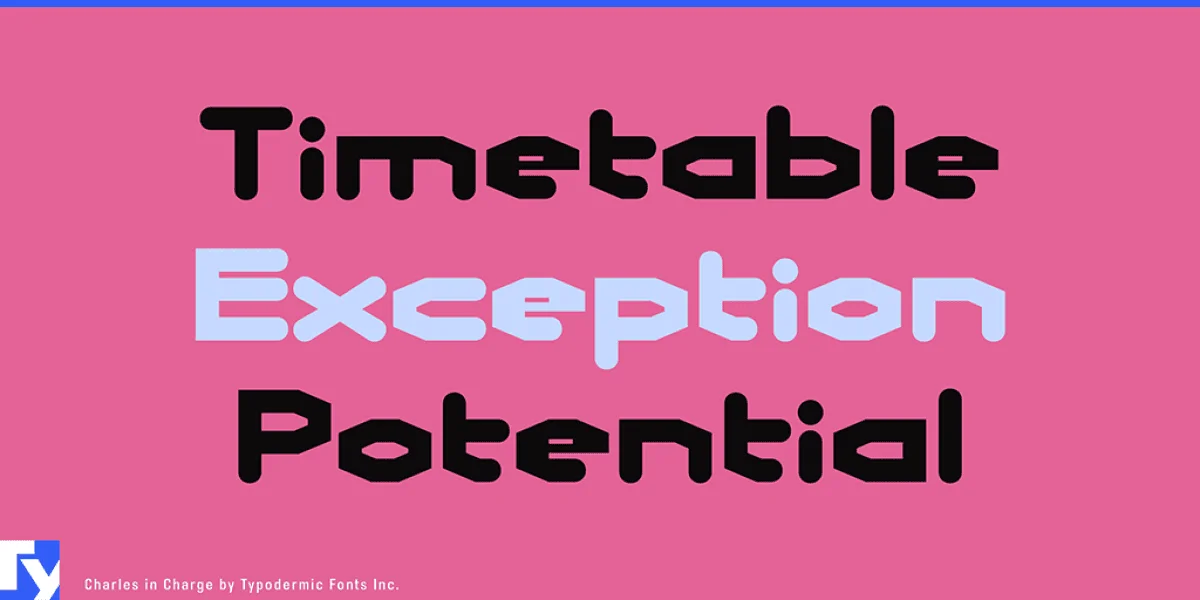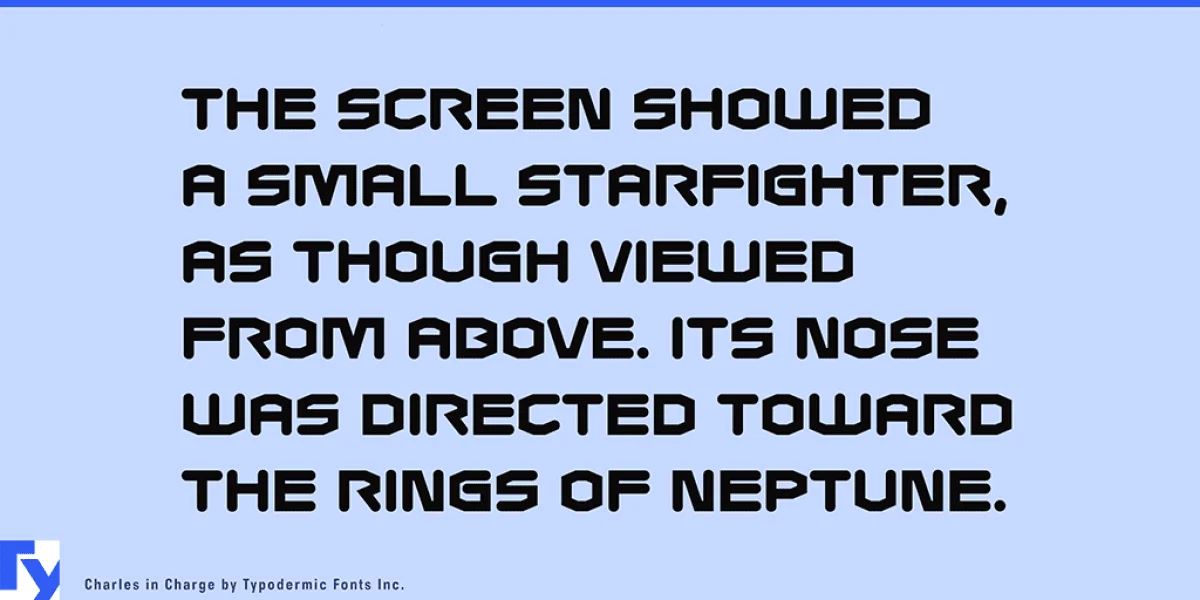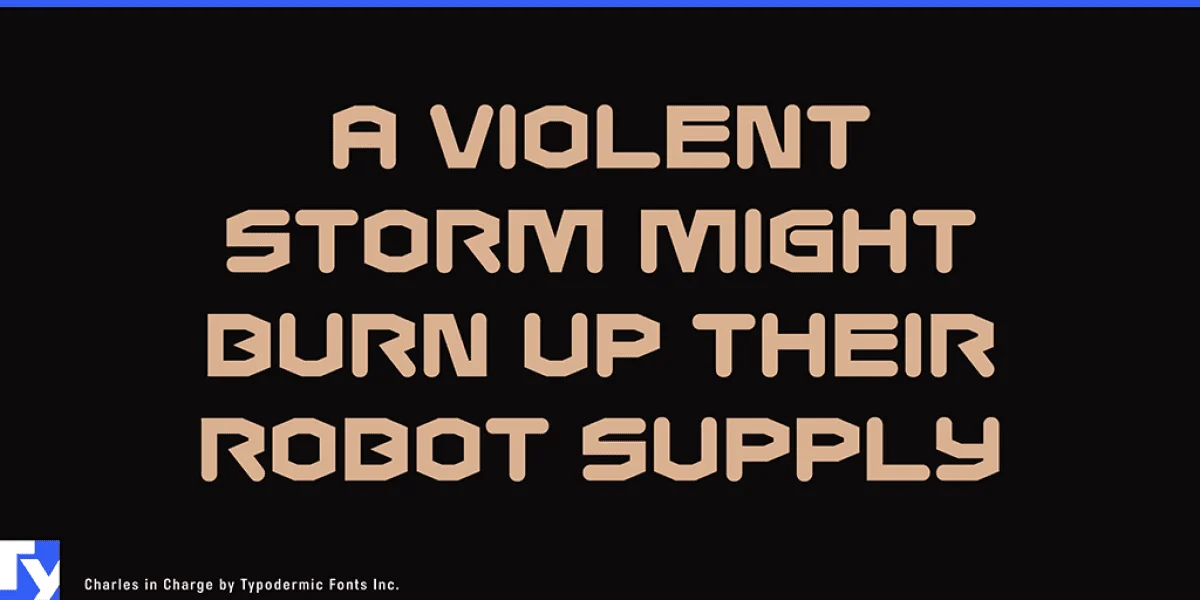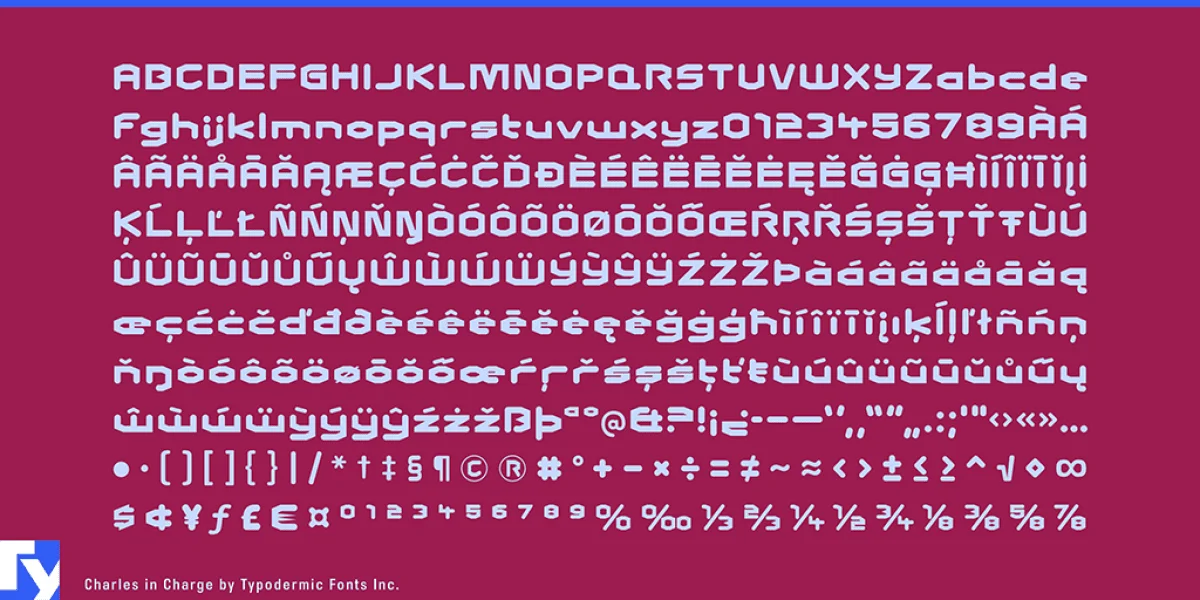
Charles in Charge is a technical-looking angular display typeface. Charge up your designs and communicate your message in a fresh way. Most Latin-based European writing systems are supported, including the following languages. Afaan Oromo, Afar, Afrikaans, Albanian, Alsatian, Aromanian, Aymara, Bashkir (Latin), Basque, Belarusian (Latin), Bemba, Bikol, Bosnian, Breton, Cape Verdean, Creole, Catalan, Cebuano, Chamorro, Chavacano, Chichewa, Crimean Tatar (Latin), Croatian, Czech, Danish, Dawan, Dholuo, Dutch, English, Estonian, Faroese, Fijian, Filipino, Finnish, French, Frisian, Friulian, Gagauz (Latin), Galician, Ganda, Genoese, German, Greenlandic, Guadeloupean Creole, Haitian Creole, Hawaiian, Hiligaynon, Hungarian, Icelandic, Ilocano, Indonesian, Irish, Italian, Jamaican, Kaqchikel, Karakalpak (Latin), Kashubian, Kikongo, Kinyarwanda, Kirundi, Kurdish (Latin), Latvian, Lithuanian, Lombard, Low Saxon, Luxembourgish, Maasai, Makhuwa, Malay, Maltese, Māori, Moldovan, Montenegrin, Ndebele, Neapolitan, Norwegian, Novial, Occitan, Ossetian (Latin), Papiamento, Piedmontese, Polish, Portuguese, Quechua, Rarotongan, Romanian, Romansh, Sami, Sango, Saramaccan, Sardinian, Scottish Gaelic, Serbian (Latin), Shona, Sicilian, Silesian, Slovak, Slovenian, Somali, Sorbian, Sotho, Spanish, Swahili, Swazi, Swedish, Tagalog, Tahitian, Tetum, Tongan, Tshiluba, Tsonga, Tswana, Tumbuka, Turkish, Turkmen (Latin), Tuvaluan, Uzbek (Latin), Venetian, Vepsian, Võro, Walloon, Waray-Waray, Wayuu, Welsh, Wolof, Xhosa, Yapese, Zapotec Zulu and Zuni.